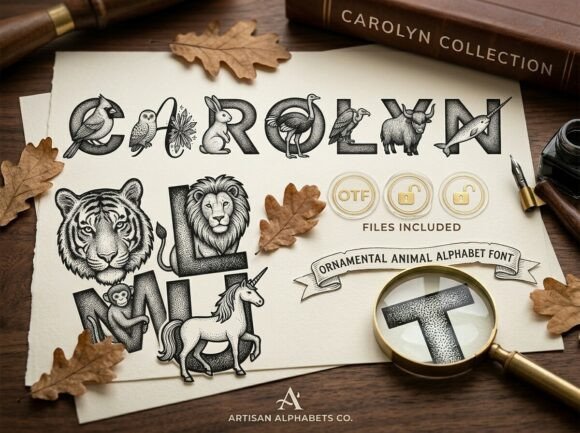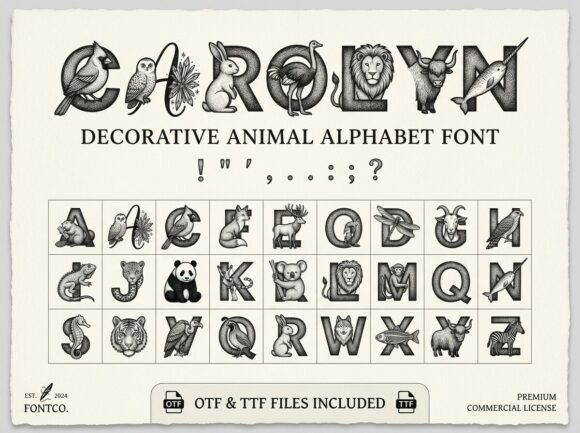
Enter a World of Whimsy with Carolyn Font: A Masterpiece of Stippling and Folklore
In the realm of typography, few fonts have managed to capture the essence of fine-art etching and stippling as effortlessly as Carolyn. This stunning illustrated font collection is a game-changer for designers and crafters seeking to infuse their projects with a touch of mystique and vintage charm. With its high-resolution vector typeface and intricate dot-work texture, Carolyn blurs the line between typography and art, offering a unique aesthetic that’s sure to captivate audiences.
The Art of Stippling: A Distinctive Texture
Carolyn’s standout feature is its stippled texture, meticulously crafted to provide incredible depth and a tactile, hand-crafted feel. This distinctive texture is reminiscent of fine-art etching, where artists use tiny dots to create detailed, high-contrast images. The result is a font that exudes a sense of luxury, sophistication, and timelessness.
The stippling technique used in Carolyn creates a visually striking effect, with the tiny dots forming a pattern that adds an extra layer of meaning to the text. This technique also gives the font a sense of history, evoking the intricate illustrations found in ancient tomes and mystical texts.
A Suite of Enchanting Icons
Carolyn is more than just a font – it’s a comprehensive design system that includes a suite of matching animal and mythical icons. From regal lions and majestic unicorns to mystical creatures and symbolic motifs, these icons are designed to complement the font’s whimsical, folklore-inspired aesthetic.
The icons are meticulously crafted to match the font’s level of detail and stippling technique, ensuring a cohesive look that elevates any design project. Whether you’re creating a fantasy novel header, a boutique apothecary label, or a high-end tarot deck, Carolyn’s icons provide the perfect finishing touch.
Ideal Applications for Carolyn Font
Carolyn’s versatility and unique aesthetic make it an excellent choice for a wide range of design projects. Here are some ideal applications for this stunning font:
- Fantasy novel headers: Add a touch of magic to your book covers with Carolyn’s whimsical typography and mystical icons.
- Boutique apothecary packaging: Elevate your brand with Carolyn’s luxurious, high-end aesthetic, perfect for artisanal spirit labels and boutique packaging.
- High-end tarot deck design: Create a truly unique and captivating tarot deck with Carolyn’s intricate typography and symbolic icons.
- Dark academia branding: Infuse your brand with a sense of mystery and sophistication using Carolyn’s stippled texture and vintage charm.
- Boutique tattoo studio identities: Stand out in the world of tattoo design with Carolyn’s bold, eye-catching typography and mystical icons.
Why Choose Carolyn Font?
With so many fonts available, why choose Carolyn? Here are just a few reasons why designers and crafters are falling in love with this stunning font:
- Unique aesthetic: Carolyn’s stippled texture and folklore-inspired icons offer a distinctive look that’s sure to set your designs apart.
- High-resolution vector typeface: Enjoy crisp, clear typography that scales perfectly, whether you’re working on a business card or a billboard.
- Comprehensive design system: Get access to a suite of matching icons and a range of typography options, making it easy to create cohesive, professional designs.
- Vintage charm: Carolyn’s intricate texture and mystical icons evoke a sense of history and mystique, perfect for designers seeking to create a sense of nostalgia or timelessness.
In conclusion, Carolyn font is a masterpiece of stippling and folklore, offering a unique aesthetic that’s sure to captivate audiences. With its high-resolution vector typeface, intricate dot-work texture, and comprehensive suite of icons, Carolyn is the premier choice for designers and crafters seeking to create enchanting, professional designs.